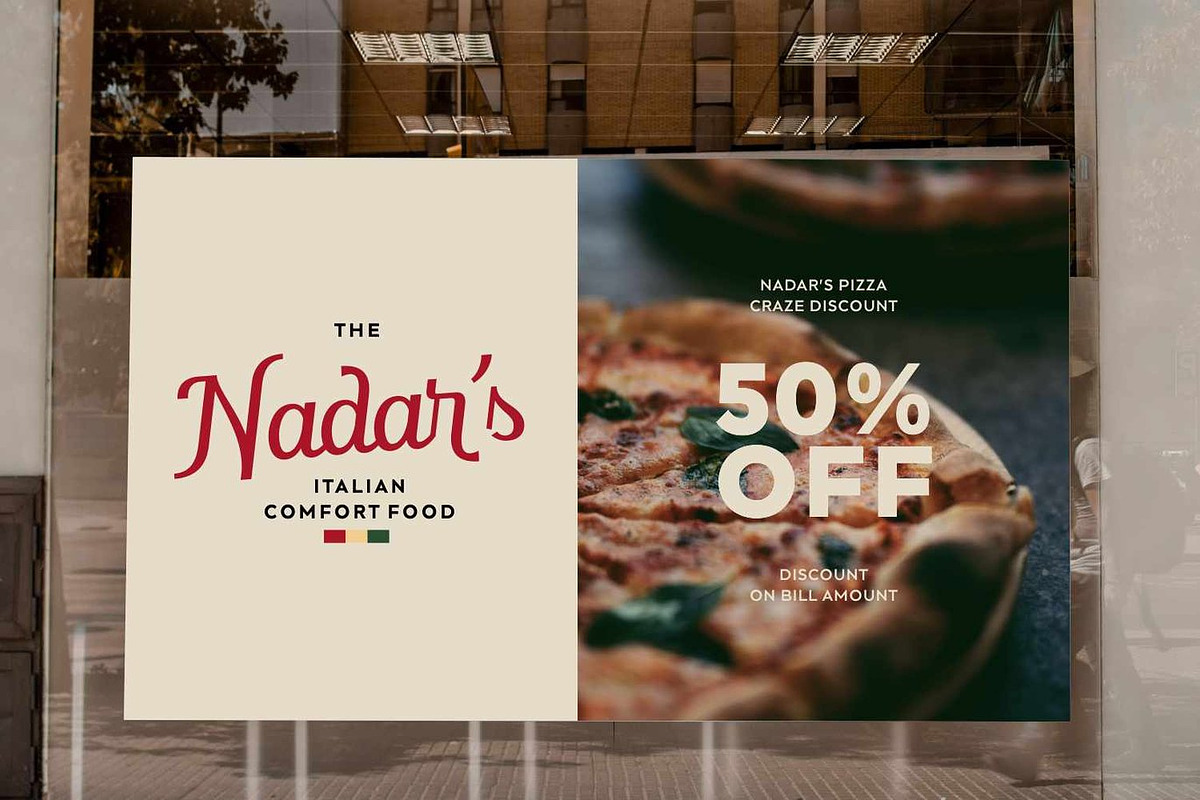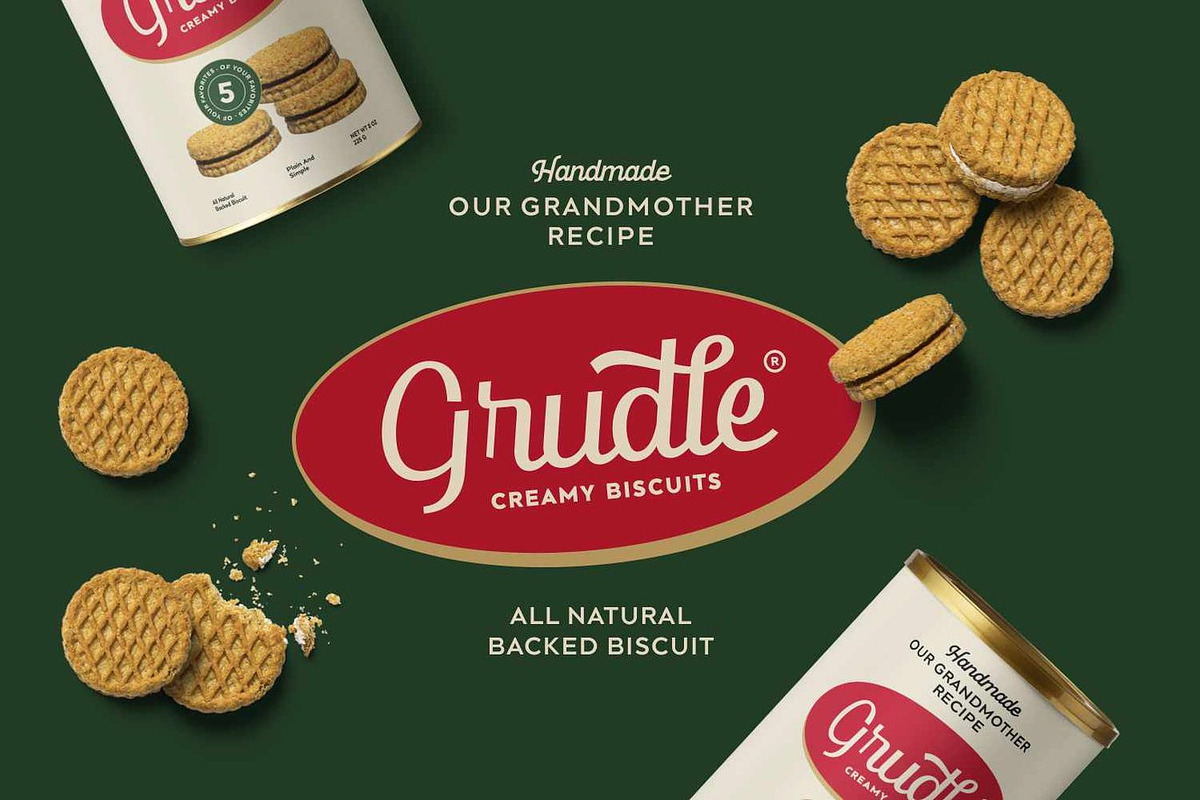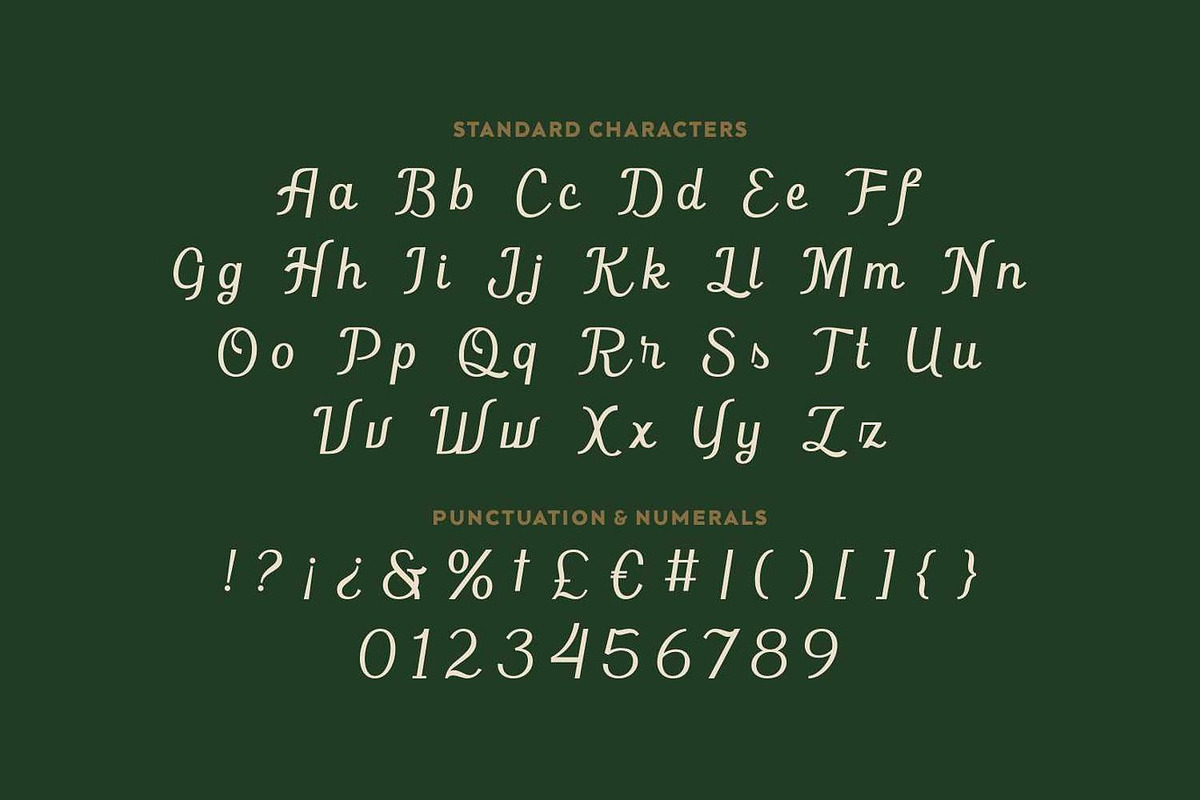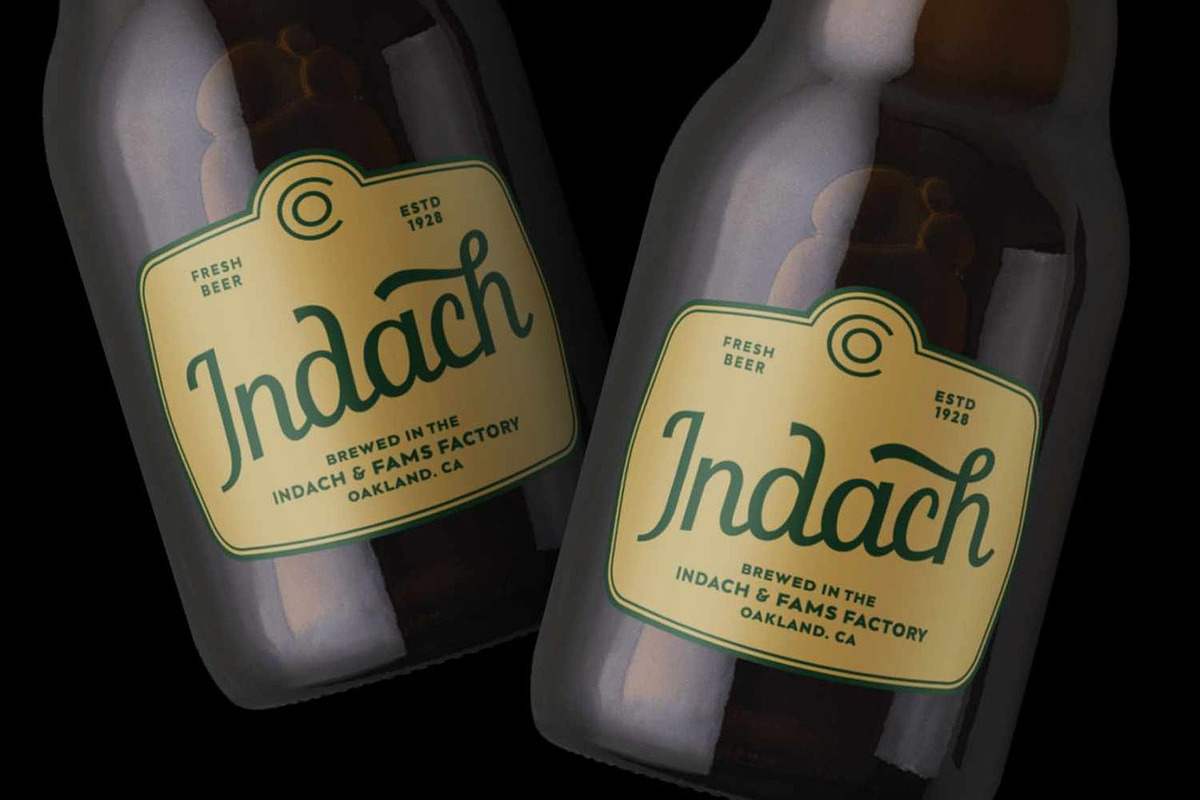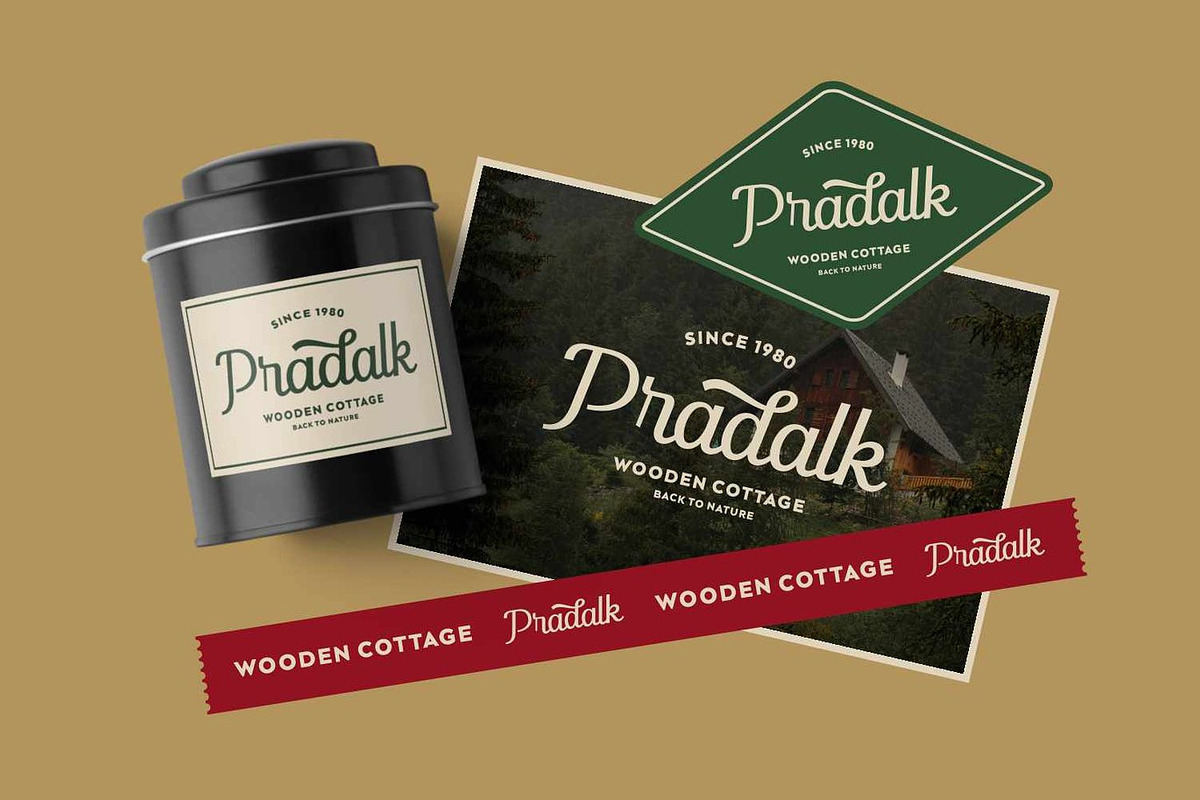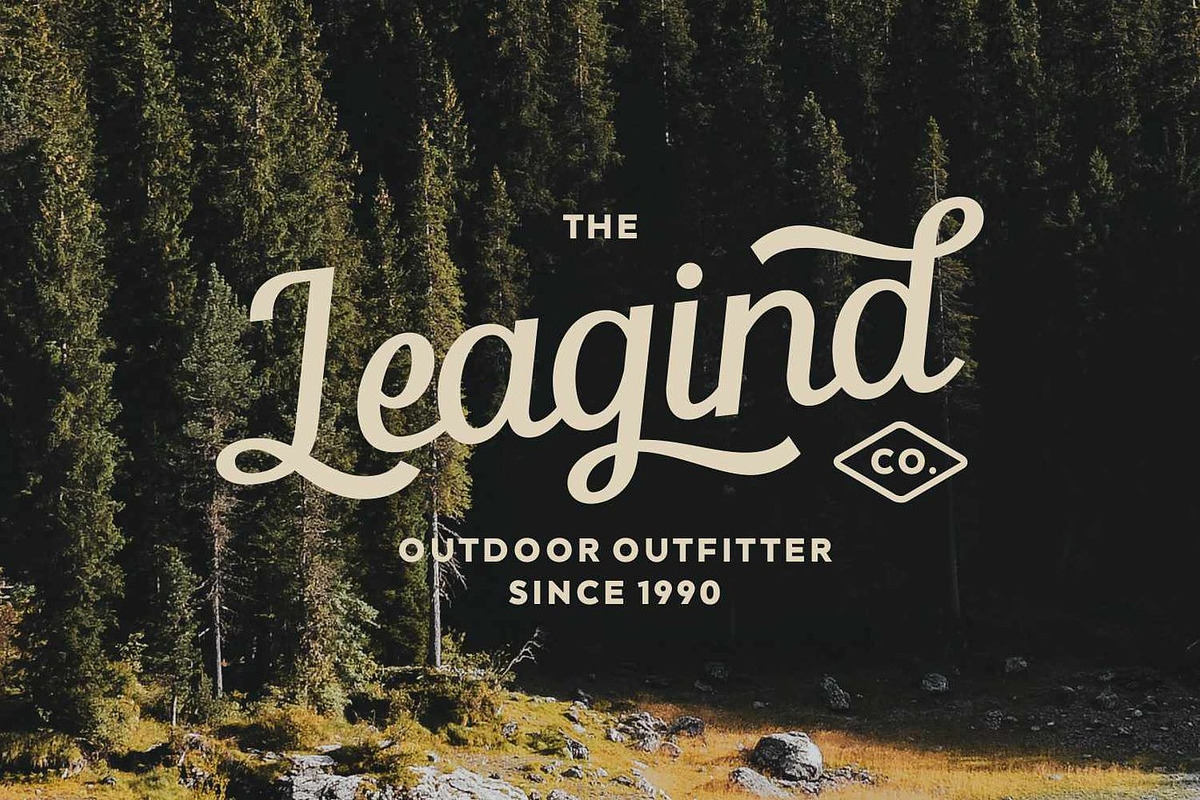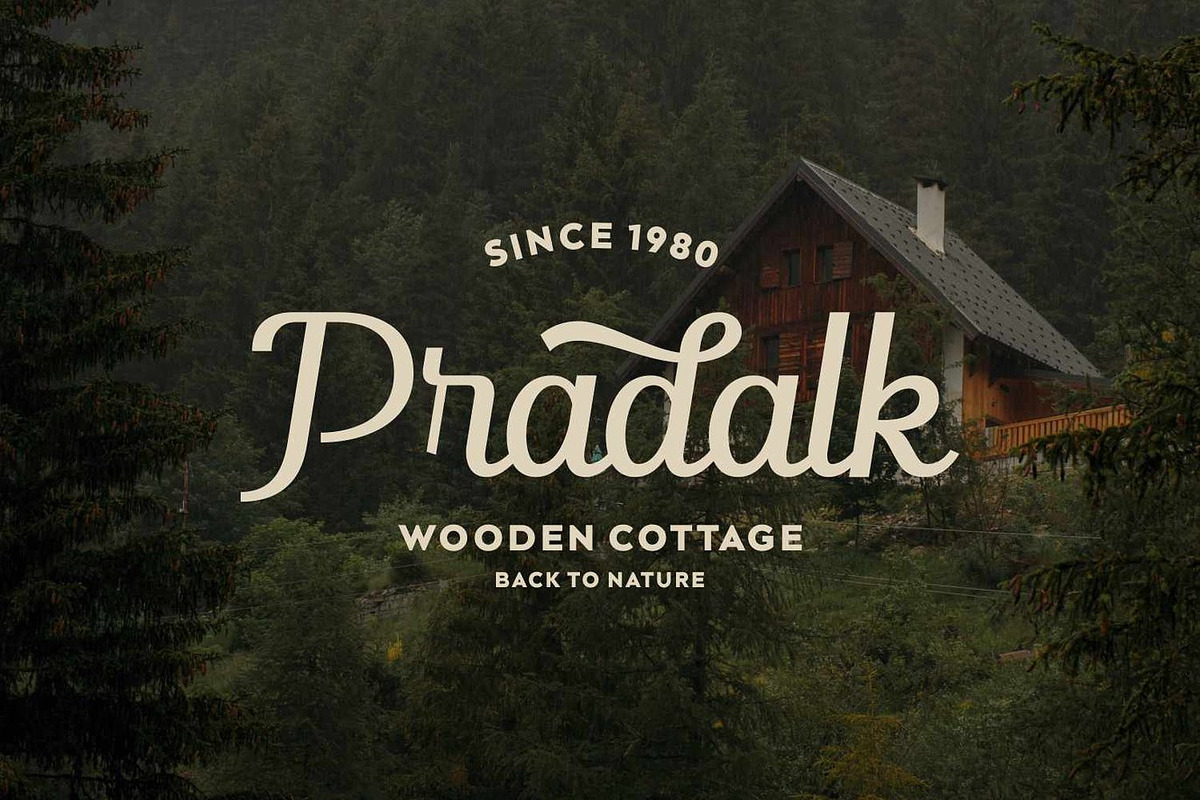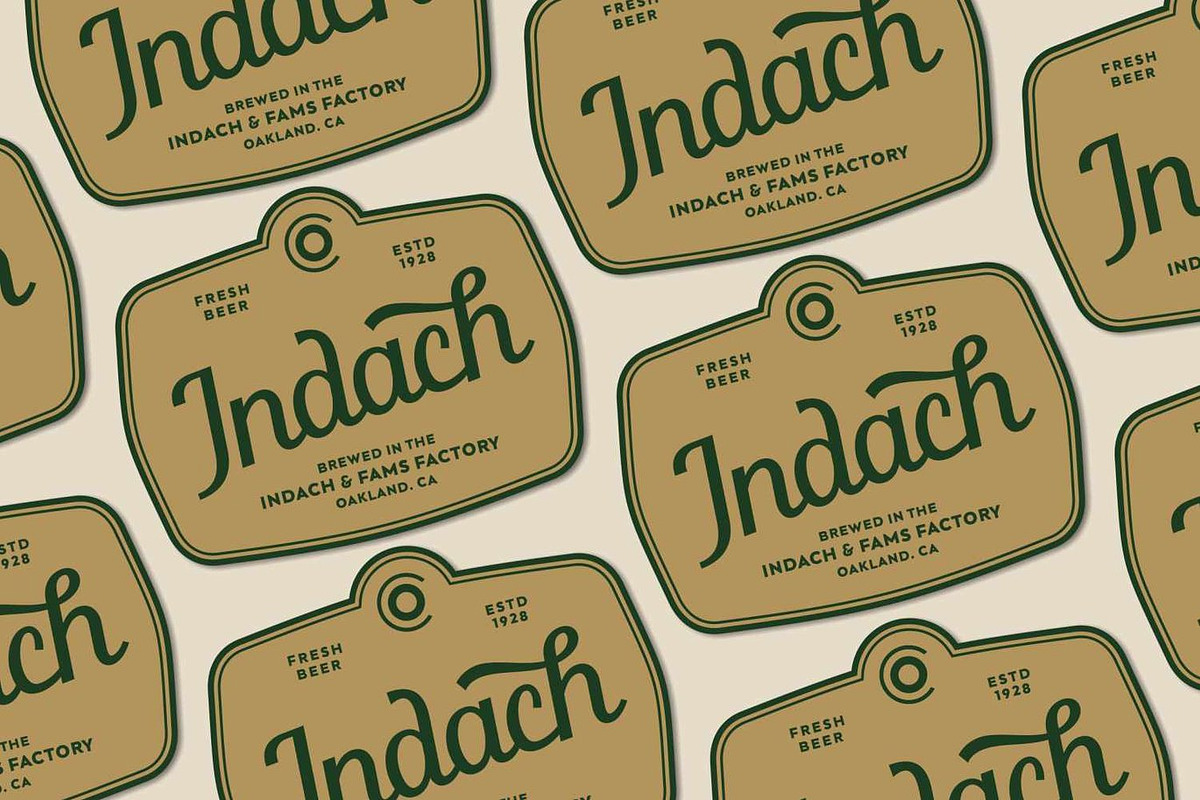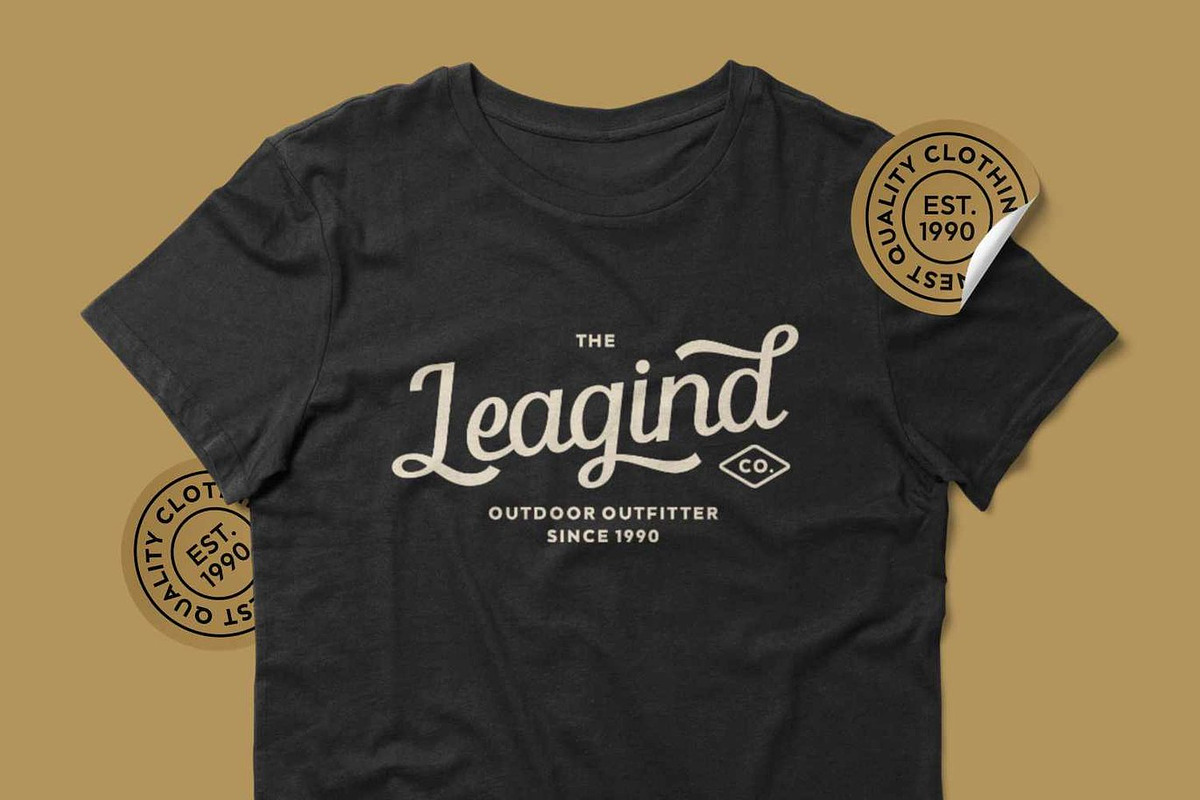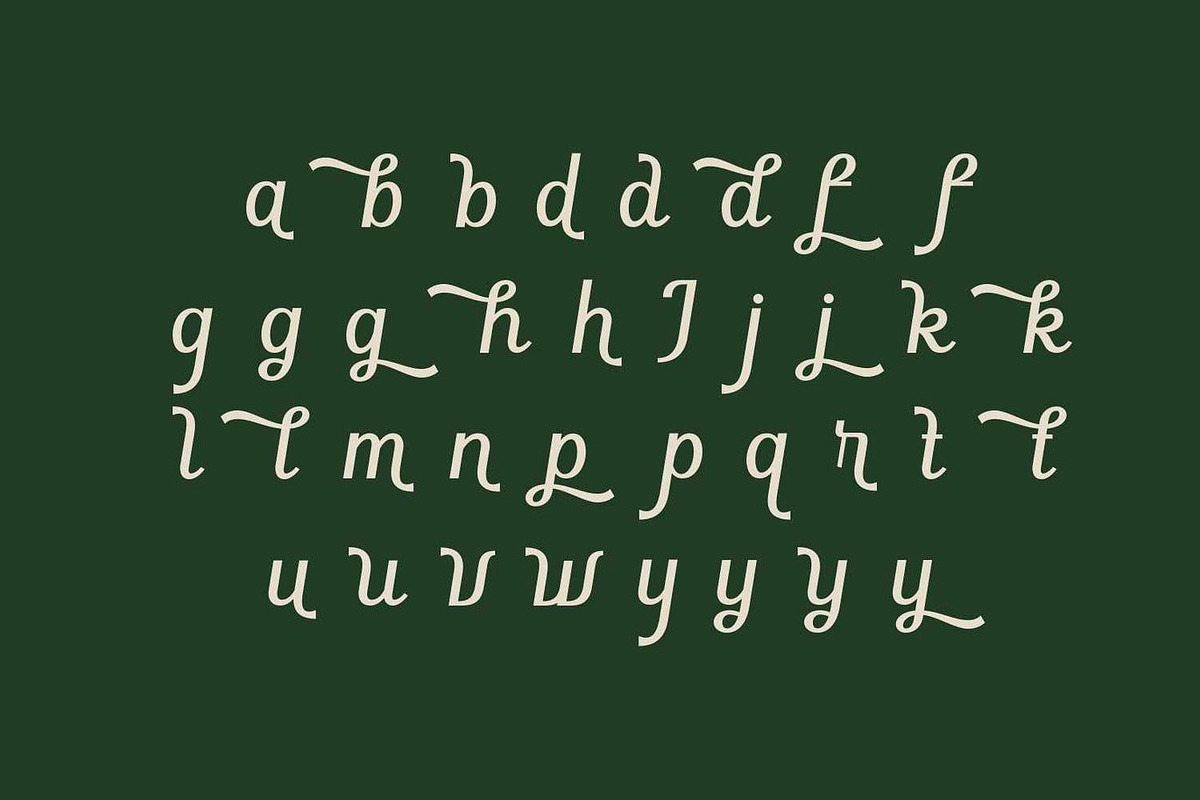
Melodina - Vintage Script Font
Melodina is a bold vintage script font inspired by the timeless charm of 1980s lettering design. Reimagined with a stronger, more modern presence, Melodina brings nostalgic aesthetics into today’s creative projects with effortless elegance.
Designed to capture that authentic retro vibe, Melodina is perfect for logos, posters, apparel, signage, packaging, magazine titles, and more. Its smooth curves and confident strokes make it ideal for designers who want to create bold and memorable vintage-inspired visuals.
With OpenType features, Melodina offers a wide range of alternates and ligatures, allowing you to customize your typography and bring your unique creative vision to life.
- Vintage Script Style
- Alternates & Ligatures (OpenType)
- Numbers, Punctuation & Symbols
Logos • Apparel • Posters • Branding • Packaging • Signage • Magazines • Retro-Themed Designs
✨ Melodina blends classic retro charm with bold modern flair — perfect for making your designs stand out with authentic vintage energy.